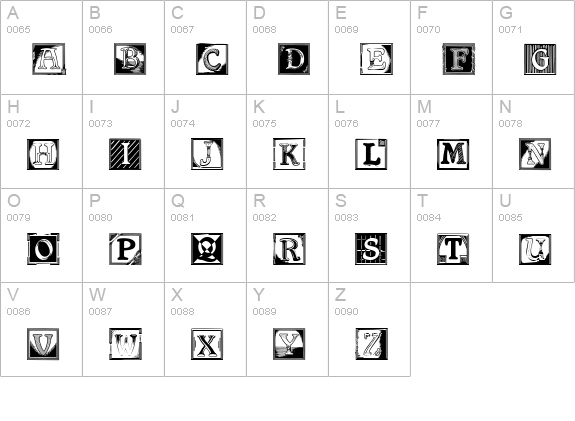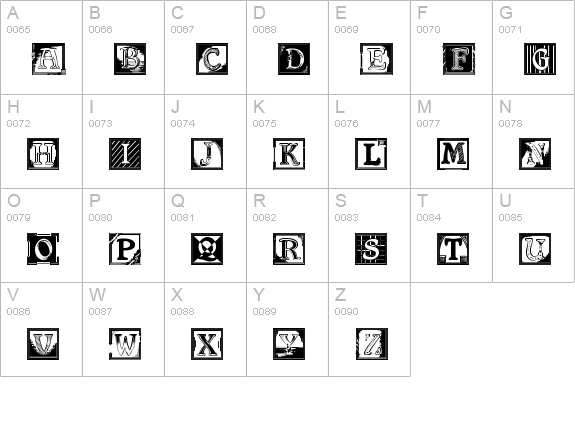
Introducing the captivating Shrewsbury Initials font, a delightful display typeface that exudes elegance and sophistication. With its intricate and ornamental letterforms, Shrewsbury Initials will instantly transport you to a realm of timeless beauty and exquisite craftsmanship. Every letter in Shrewsbury Initials has been meticulously designed, paying homage to the rich tradition of ornate calligraphy. The delicate curves, graceful flourishes, and meticulously detailed serifs create an enchanting visual experience that is sure to captivate any audience. Whether you are designing wedding invitations, branding materials, or adding a touch of sophistication to your personal projects, Shrewsbury Initials is the perfect choice. It effortlessly adds a touch of class and refinement, elevating any design to a whole new level of elegance. What makes Shrewsbury Initials even more remarkable is that it is available for free! Yes, you read that right. This incredible font is freely available to download at FontsMarket.com. Now, you can enhance your designs with this stunning typeface without breaking the bank. So why wait? Elevate your designs and indulge in the timeless beauty of Shrewsbury Initials. Download it today and let your creativity flourish with this truly remarkable font.